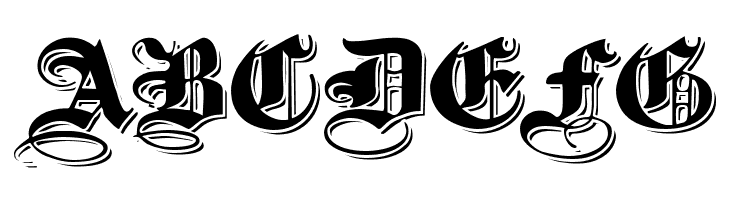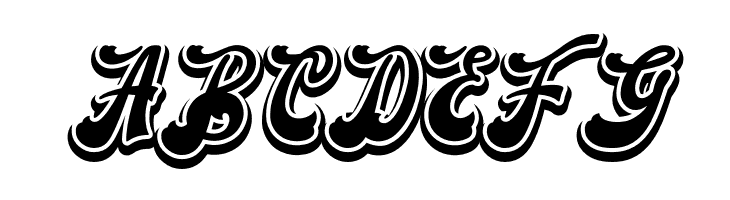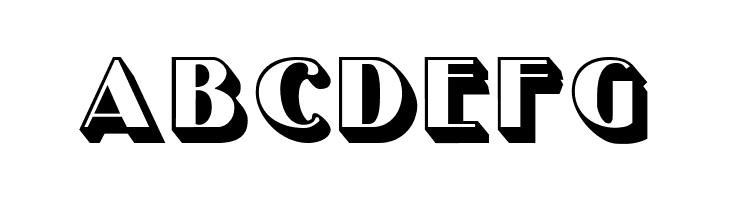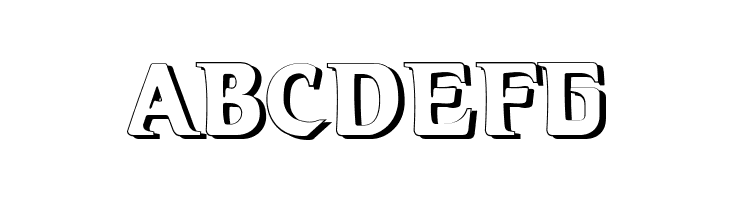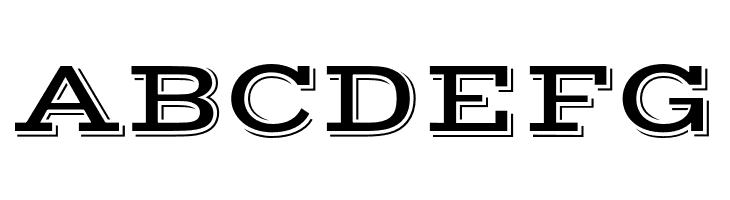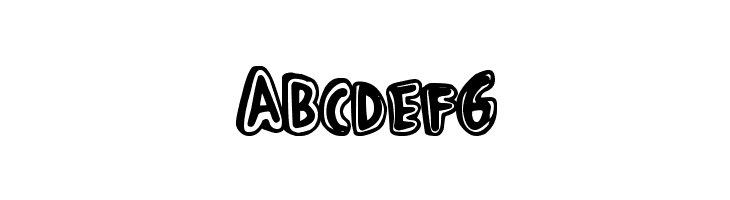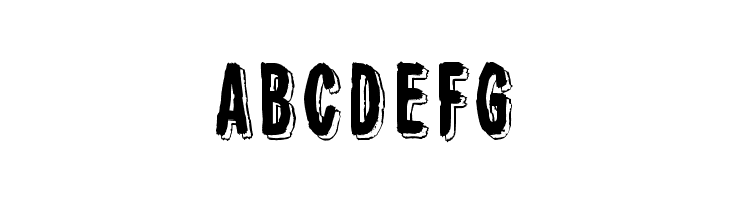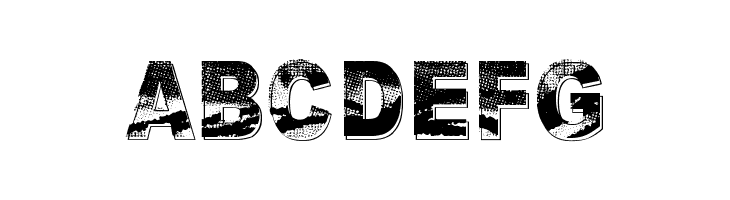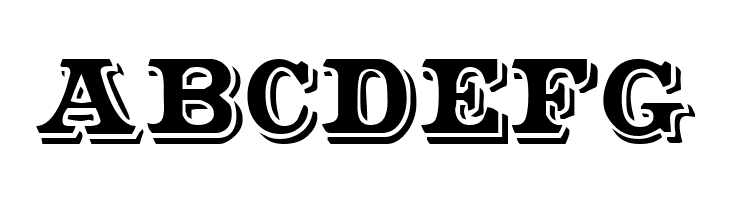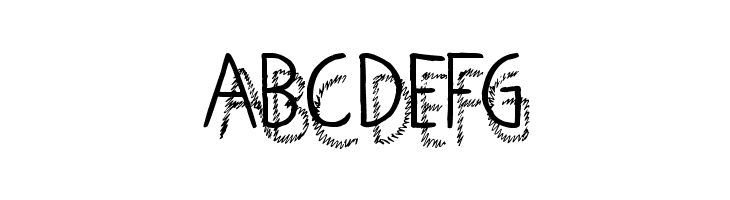
A shadowed blackletter font with intricate Gothic details.
A bold, shadowed serif font with a classic yet modern appeal.
A bold, shadowed blackletter font with intricate details and a traditional yet modern feel.
A playful, bold font with a distinctive shadow effect and rounded, inflated characters.
A playful, bold font with an open shadow effect and vintage carnival style.
A bold, shadowed font with a three-dimensional effect.
A bold, playful font with a three-dimensional outline and shadow effect.
A bold, shadowed decorative font with a modern and vintage appeal.
A bold, shadowed font with a three-dimensional effect, perfect for headlines.
A bold, shadowed font with a playful, comic book style.
A playful, bold font with a shadow effect and hand-drawn style.
A playful, cartoon-style font with subtle shadow effects for a 3D look.
Bold, shadowed font with a three-dimensional effect.
A bold, hand-drawn font with a shadow effect and sketch-like quality.
A bold, distressed font with a shadow effect, ideal for vintage and grunge designs.
A bold, hand-drawn font with a dynamic shadow effect.
A bold, playful font with a unique shadow effect and rounded characters.
A bold, italic font with a playful shadow effect, perfect for dynamic designs.
A bold, hand-drawn font with a shadow effect and sketch-like texture.
A bold, playful font with a unique shadow effect and outlined characters.
A bold, playful font with a 3D shadow effect, perfect for dynamic designs.
A bold, three-dimensional font with a shadow effect, offering a modern and striking appearance.
A modern, geometric font with a three-dimensional shadow effect.
A bold, playful font with a shadow effect and hand-drawn style.
A bold, shadowed font with a three-dimensional, impactful design.
A playful, bold font with a bubble-like design and shadow effect.
A bold, shadowed font with a vintage, three-dimensional look.
A bold script font with a dynamic shadow effect, perfect for impactful designs.
A bold, geometric font with a three-dimensional shadow effect.